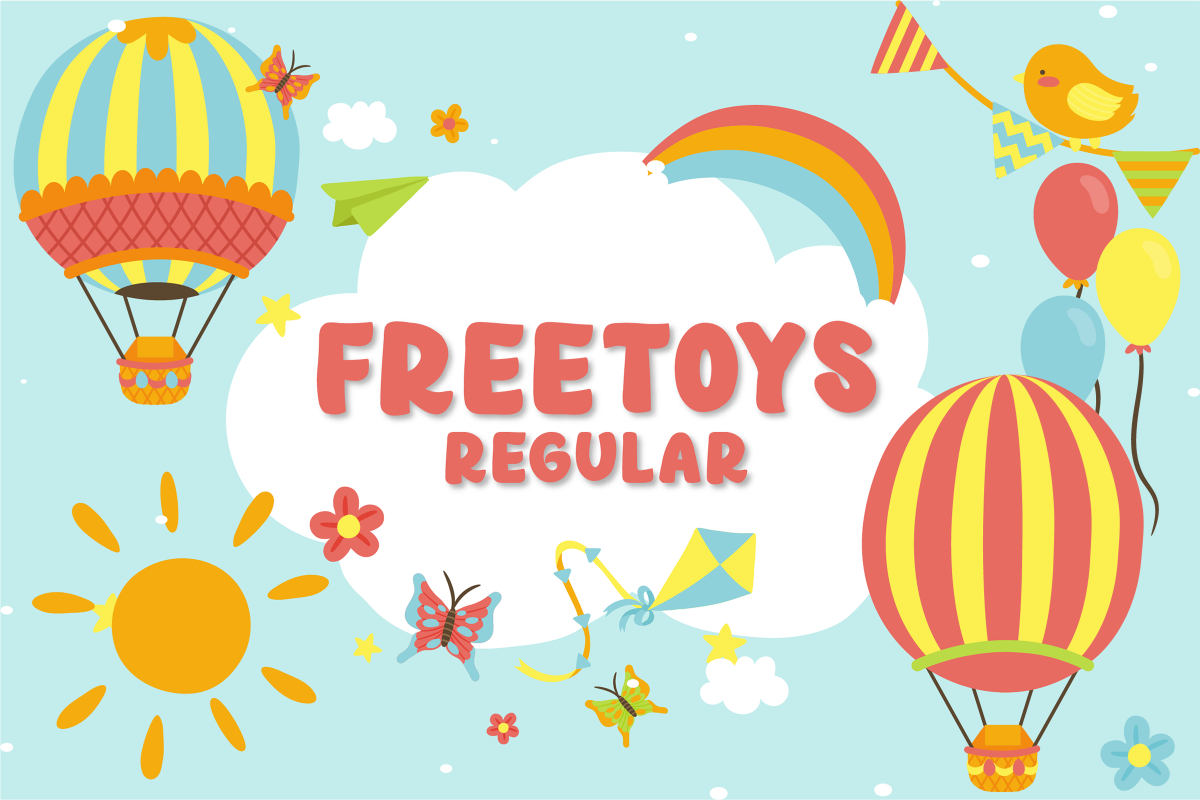
FREETOY REGULAR
Freetoys
Freetoys fonts are inspired by the fun of the children that I described through the arrangement of the existing letters. The atmosphere is very happy symbolizing the characteristics of children. There are three styles namely regular, outline, and horror. Which each of them can stand alone in accordance with the project that you will do. This font is very suitable to be applied into a film industry, especially on cheerful themes. Besides that, it is also suitable for apparel, post cards, poetry, toy logos, and much more.